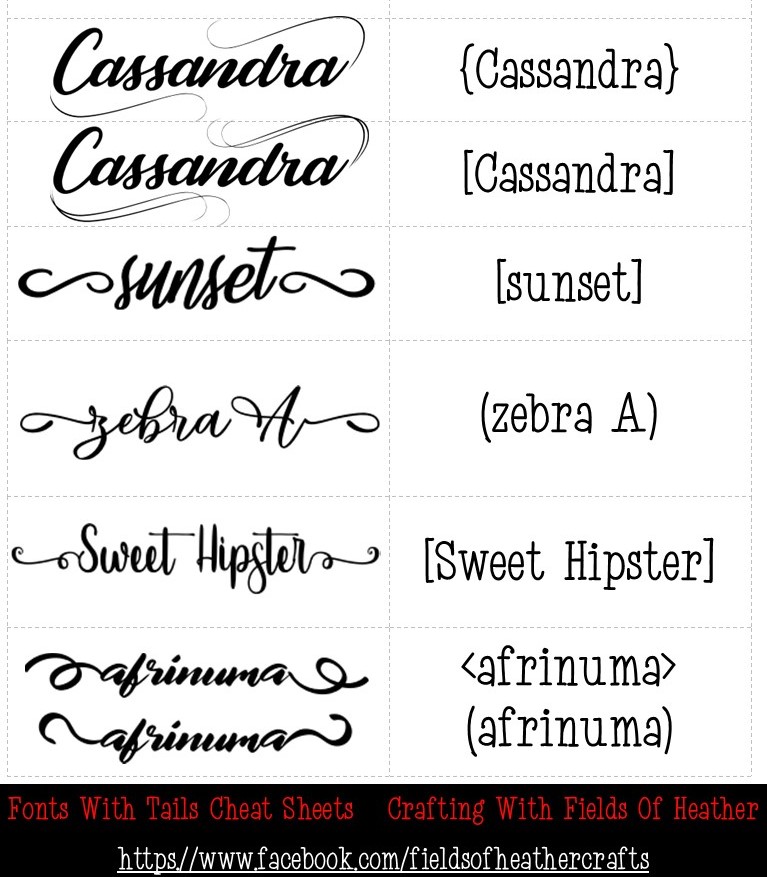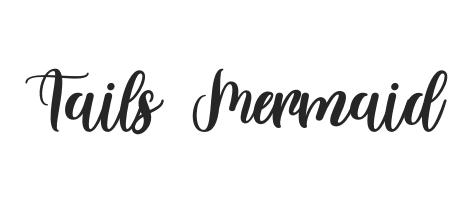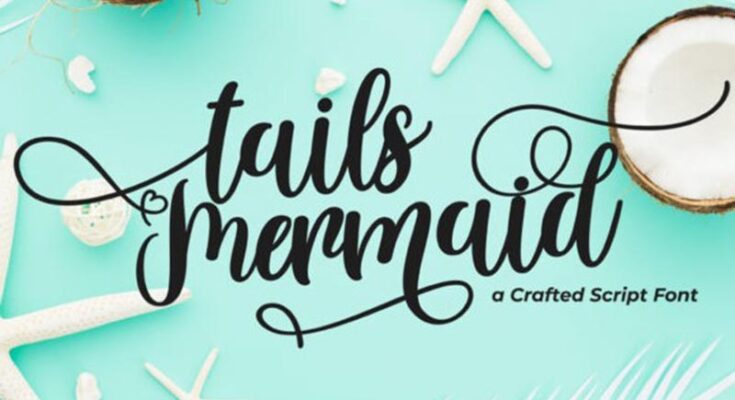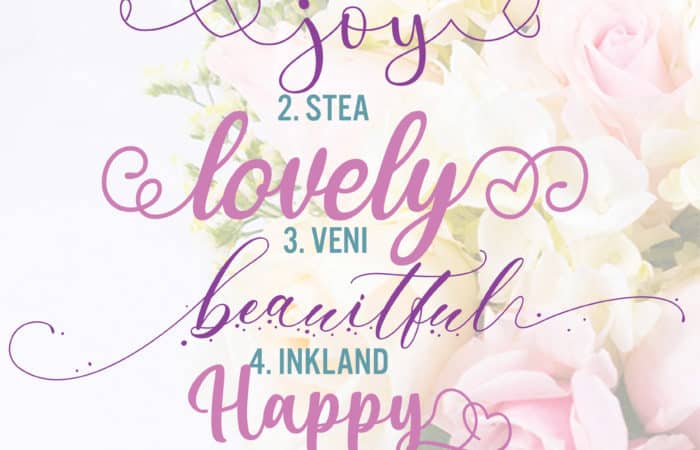
Milkshake is a free font with LOTS of glyphs by Laura Worthington - the same designer who created the Samantha font. Yellowtail Font Free by Astigmatic Font Squirrel Download and install the Yellowtail free font family by Astigmatic as well as test-drive and see a complete character set.
Free fonts with tails. Sometimes a font preview on dafont will show pretty tails but you will not see them when you download the font. Christabel Baby Lovely and more swirly fonts with alternate swashes. We have 4 free baseball swash tail fonts to offer for direct downloading 1001 Fonts is your favorite site for free fonts since 2001.
Lets kick things off with Mattosa Script Font a stunning font that. Click to find the best 24 free fonts in the Tails style. Make beautiful projects using your Cricut with any of these great fonts.
Im searching for some fonts with tailsunderlining the text. Every font is free to download. Tail font Etsy.
No Character map needed for these fonts you simply type characters like. Hustler Brush Script Font With Tail. Browse dozens of font categories such as calligraphy handwriting script and more.
Mar 28 2018 - Cricut Tutorials Free SVGS Free Fonts Fields Of Heather Cricut Cheat Sheets. Jun 07 2013 at 0457. No Character map needed for these fonts you simply type characters like.
Lightning Script Font Handwritten Bold Font Font with Tails Procreate Font Cricut Silhouette Font Cursive Font Commercial Use Font. The video above will show you exactly how to do that and Ive also added a few photos below to show you how. Baseball Font With Tail Vector - Download 728 Vectors Page 1 Baseball Baseball.
Looking for Tails fonts. Download 23 font tail free vectors. Cheat Sheets for Easy Glyph Fonts with Tails.
So many people ask about fonts that included flowing tailsAfter much searching I have found that most of the fonts that have tails. 31 Best Swash Fonts Mattosa Script Font With Swashes TTF OTF WOFF. We have 368 free Swash-tail Cursive Fonts to offer for direct downloading 1001 Fonts is your favorite site for free fonts since 2001.
Any suggestions would be appreciated. Looking for a beautiful calligraphic font with plenty of. Melyana Calligraphy Font With Swashes TTF OTF WOFF.
Amastery Bohema and o mix of modern and vintage fonts with extra glyphs. Hand Lettering FontsText FontsHandwritten FontsCalligraphy FontsAll FontsModern CalligraphyTypographyPolices CricutFontes Script. A collection of free downloadable fonts that have tails included.
Fonts with a tail. Now that you have FontCloud you can add tails to text in Cricut Design Space. Article byCrafting With Fields Of Heather.
We have 782 free Swash-tail Fonts to offer for direct downloading 1001 Fonts is your favorite site for free fonts since 2001. Amilya Nolisa and more elegant classy wedding fonts with tails. Cheat Sheets for Easy Glyph Fonts with Tails.
The Demo versions usually do not include all of the extra glyphs. 5 out of 5 stars. Collection of fonts for Fonts with tails.
First youll want to upload some of your fonts into FontCloud. Free Fonts With Thinner Tails. Dafont Fonts are frequently Free Demo Versions of commercial use fonts.